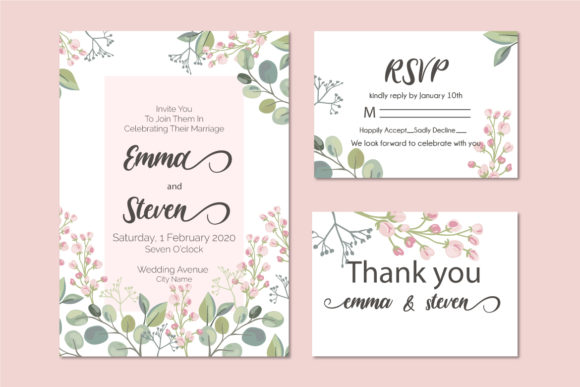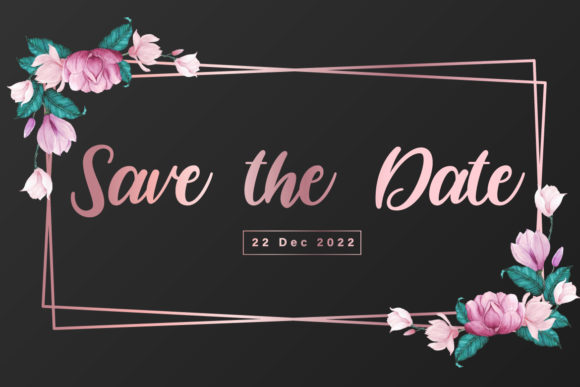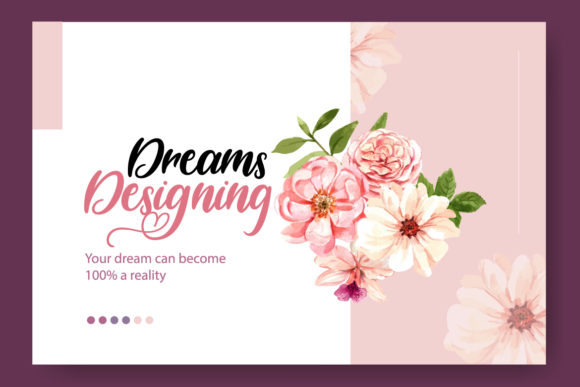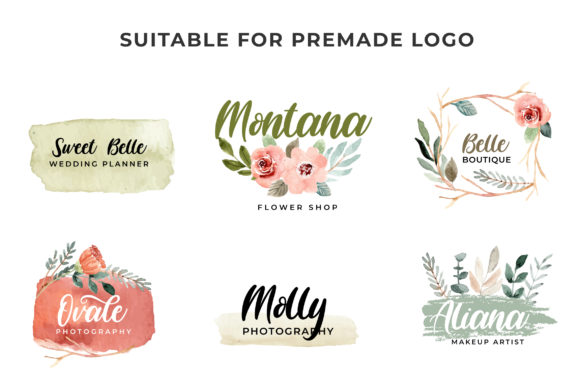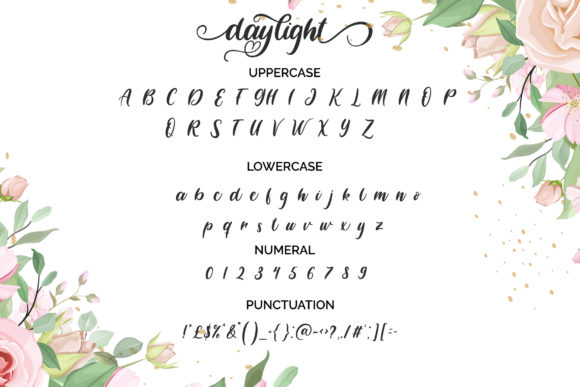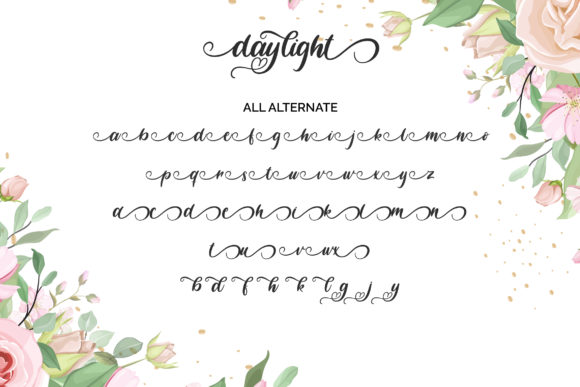
Introducing Daylight Font: Elevate Your Designs with Elegance and Sophistication
Are you a designer or crafter looking for a font that exudes elegance and sophistication? Look no further than Daylight Font, a stunning handwritten font that is sure to take your projects to the next level. With its flowing lines, beautiful glyphs, and gorgeous swashes, Daylight Font is the perfect choice for anyone looking to add a touch of class and refinement to their designs.
What Makes Daylight Font So Special?
Daylight Font is a PUA encoded font, which means that you can access all of the glyphs and swashes with ease. This makes it incredibly versatile and easy to use, even for those who are new to font design. The font features a varying baseline, smooth lines, and stunning alternates, which give it a unique and elegant feel. Whether you’re creating a logo, branding materials, or digital products, Daylight Font is sure to make your designs stand out.
Classy Calligraphic Influences with a Modern Twist
One of the things that sets Daylight Font apart from other fonts is its classy calligraphic influences. The font maintains a sense of tradition and heritage, while still feeling contemporary and fresh. This makes it perfect for designers and crafters who want to create designs that are both timeless and modern. Whether you’re creating wedding stationery, business cards, or social media graphics, Daylight Font is sure to add a touch of sophistication and elegance to your designs.
Features and Benefits of Daylight Font
- PUA encoded: Easy access to all glyphs and swashes
- Varying baseline: Unique and elegant feel
- Smooth lines: Beautiful and refined appearance
- Gorgeous glyphs: Add a touch of sophistication to your designs
- Stunning alternates: Create unique and eye-catching designs
- Classy calligraphic influences: Timeless and elegant feel
- Contemporary and fresh: Perfect for modern designs
How to Use Daylight Font in Your Designs
- Use it for headings and titles: Daylight Font is perfect for creating eye-catching headings and titles
- Add swashes and glyphs: Use the PUA encoded features to add unique and elegant touches to your designs
- Experiment with different colors: Daylight Font looks great in a variety of colors, from bold and bright to soft and pastel
- Pair it with other fonts: Daylight Font pairs well with a variety of other fonts, including serif and sans serif fonts
| Font Name | Daylight Font |
| Author | Fallengraphic |